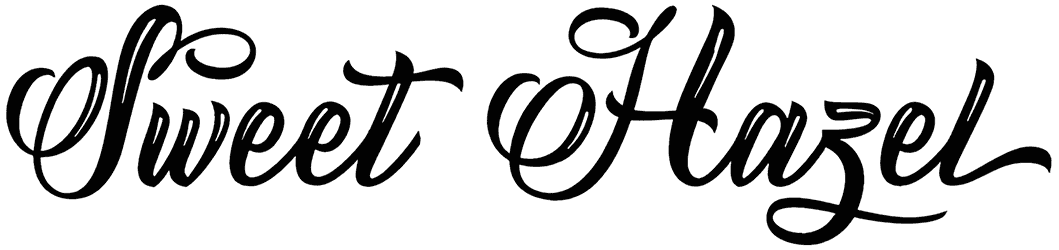
Sweet Hazel Font
Sometimes in designing graphic content such as flyers, book covers, business cards, gift cards, and invitations, you need to add a personalized handwritten touch to maximize the efficiency of the content and a script font like Sweet Hazel can help you achieve this goal.
This typeface comes with a cursive style that dances along the baseline, so establishing a sense of drama, softness, delicacy, and professionalism will be a piece of cake.